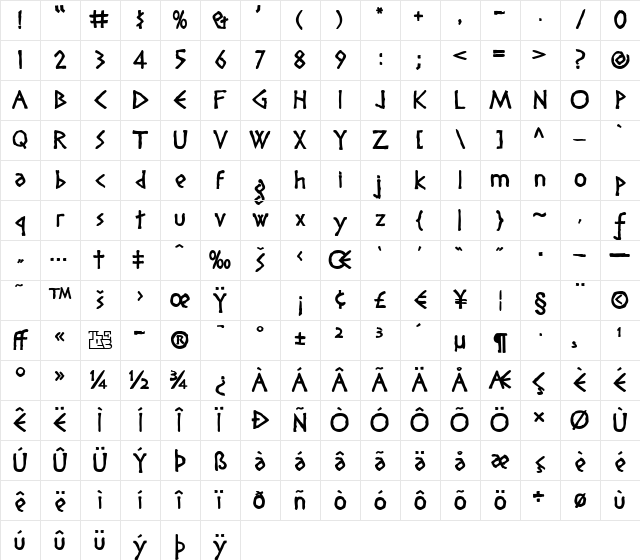
Diogenes Regular Free Font
Diogenes Regular
Designer: Apostrophe (')
Design Context for Diogenes
Diogenes is a composed and adaptable typeface that performs quietly and consistently across a wide range of design contexts.
Pro Tip: Use Diogenes in both headline and body roles to test its range before committing to a single application.